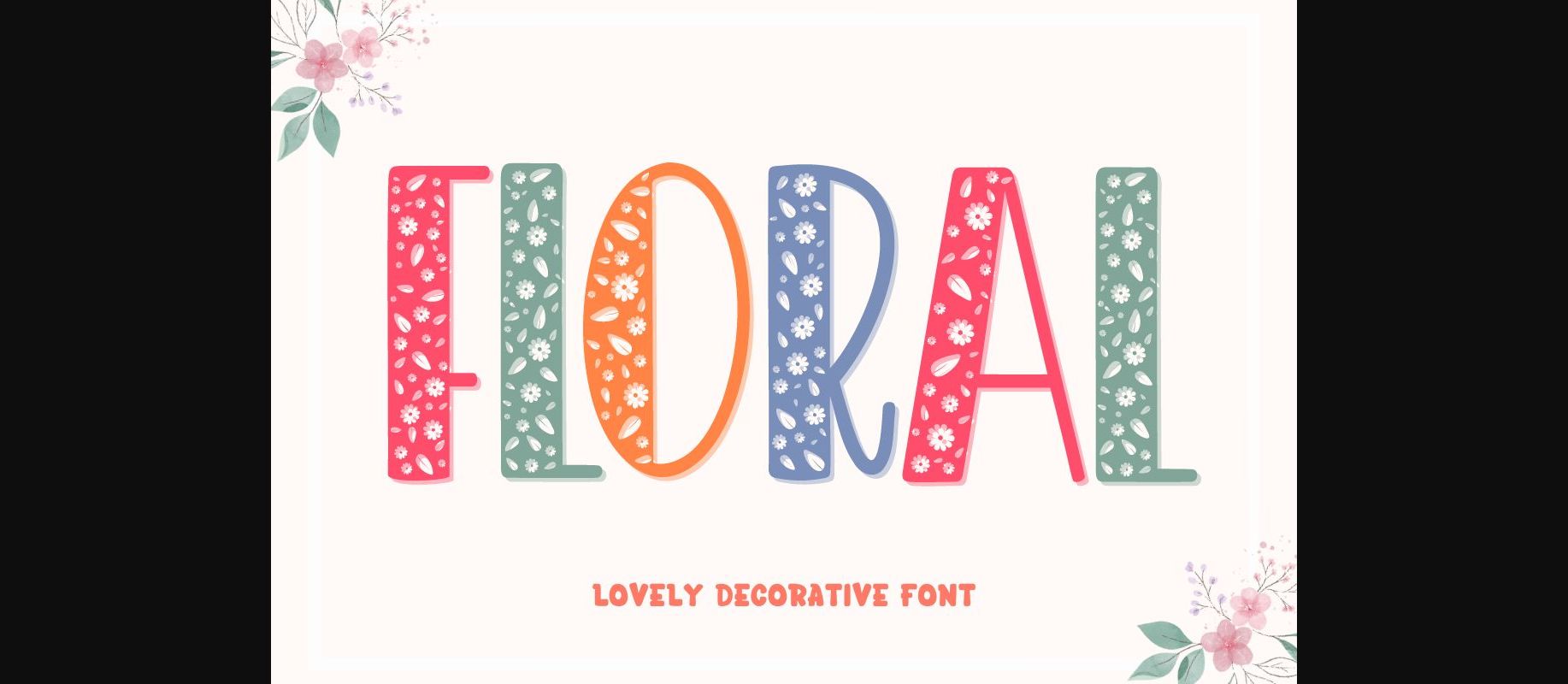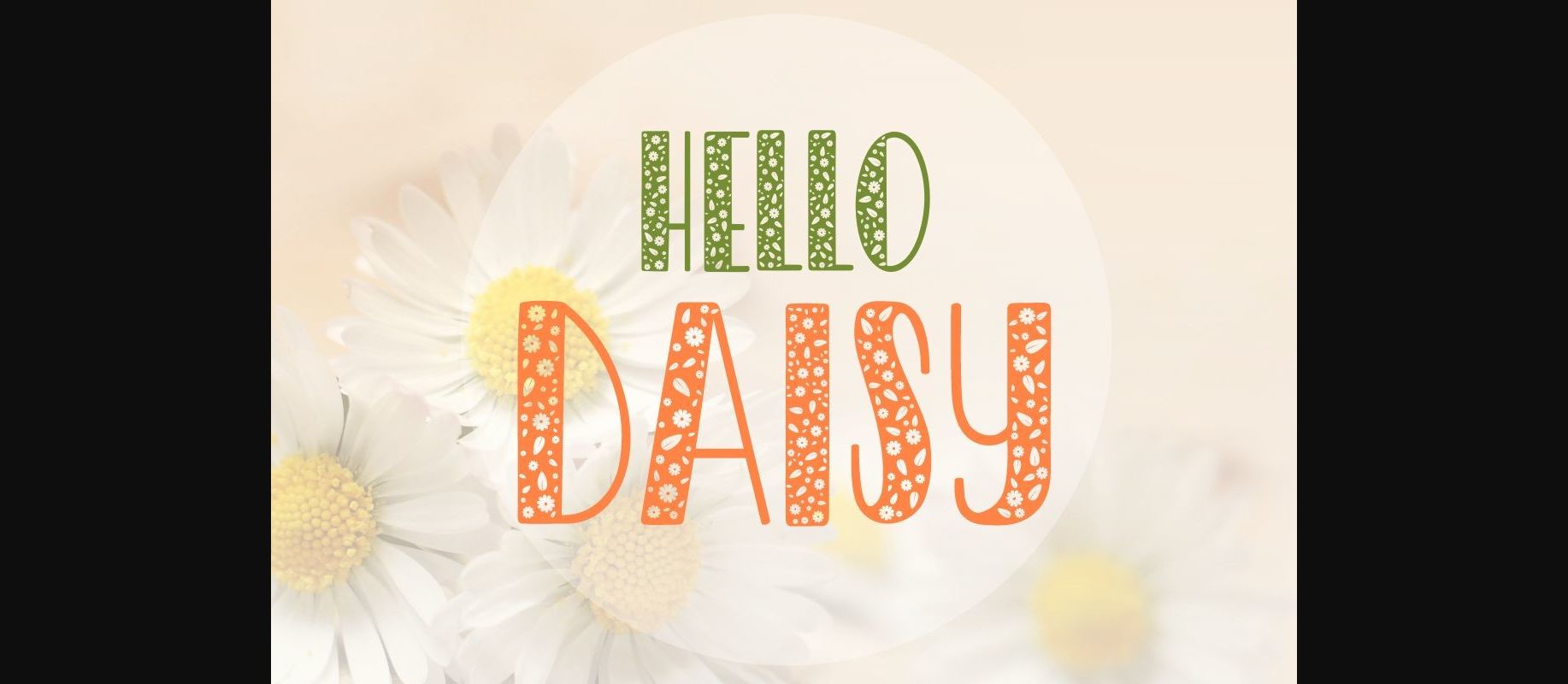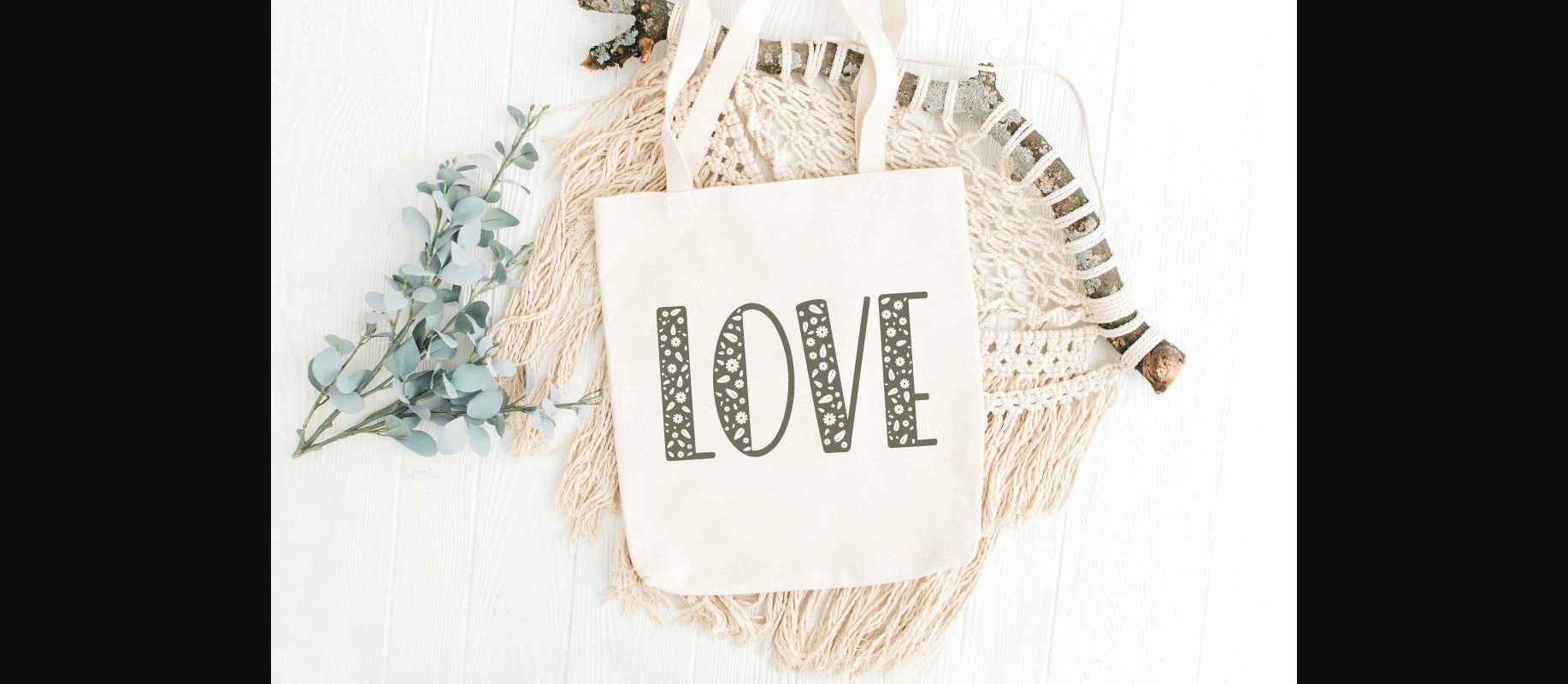
About Floral Font
Floral is a lovely decorative font. With its casual charm, this font is perfect for a wide pool of design ideas. You can design it to match the Flower theme. Perfect for creating a wide variety of new designs to match products such as banners, content, mugs, cards, shirts, stationery, social media posts, and more!